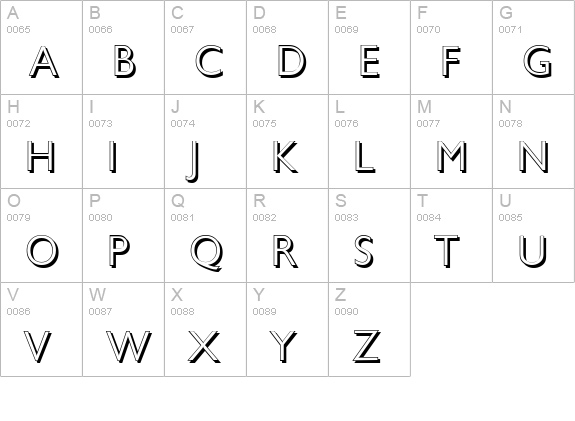
ChantillyShadow-Light-Regular Font Details
ChantillyShadow-Light-Regular is a refined, elegant variant in the ChantillyShadow typeface family \xE2\x80\x94 well suited to elegant body text, refined sub-headings, and luxury branding.
ChantillyShadow-Light-Regular font is a captivating and elegant typeface that exudes sophistication and charm. Its delicate shadow effect adds a touch of dimension and style to any design project. This versatile font is perfect for creating eye-catching headlines, branding materials, invitations, and more. The best part is that ChantillyShadow-Light-Regular font is completely free to download at FontsMarket.com. You can easily enhance your creative projects with this beautiful typeface without having to worry about any costs. Don't miss out on this amazing opportunity to elevate your designs with the timeless elegance of ChantillyShadow-Light-Regular font.